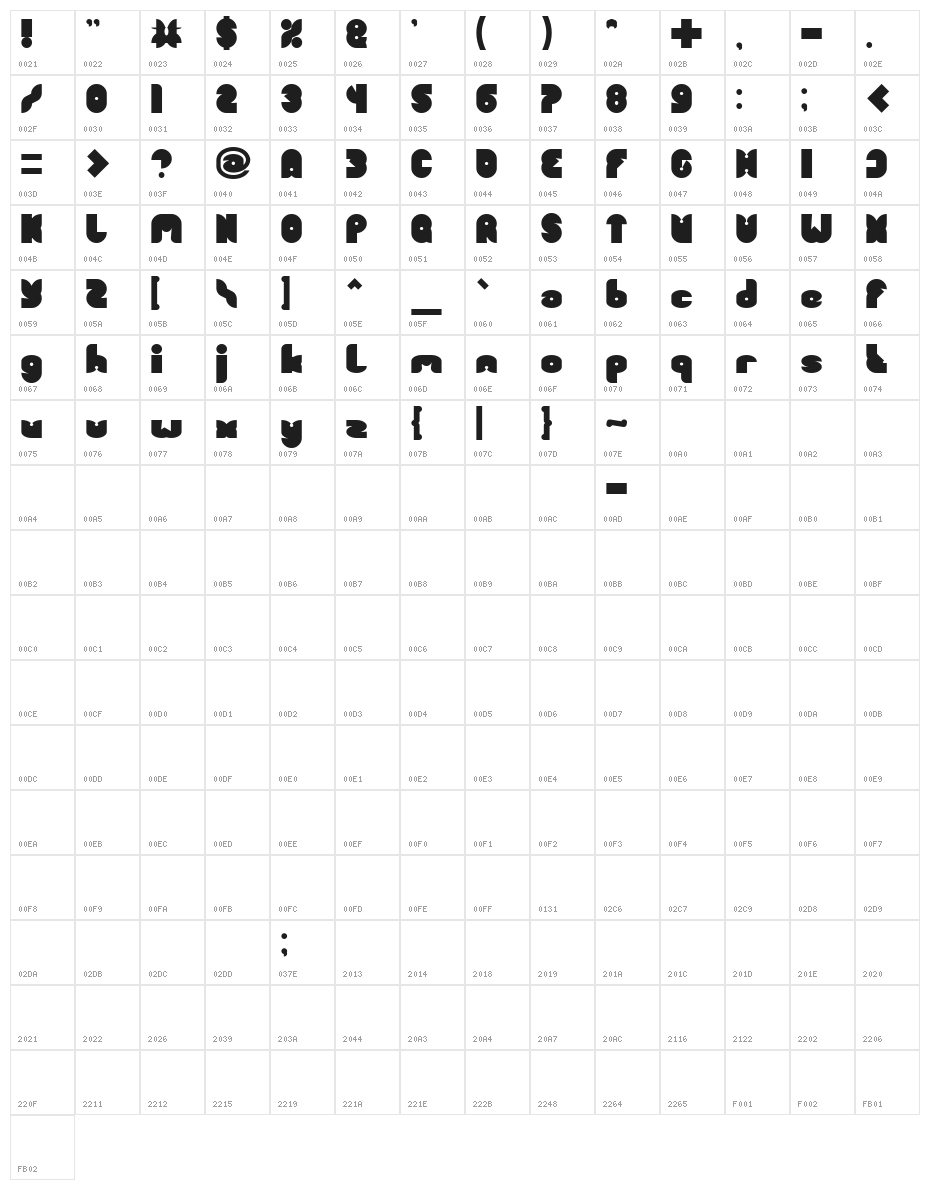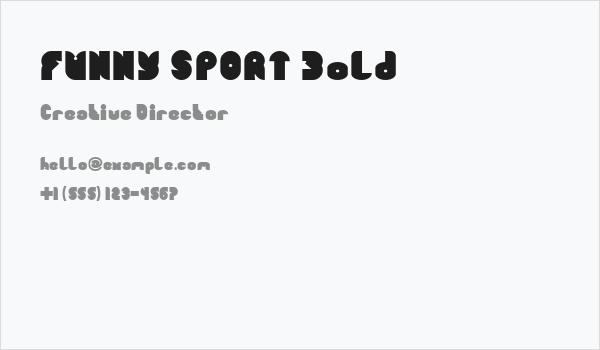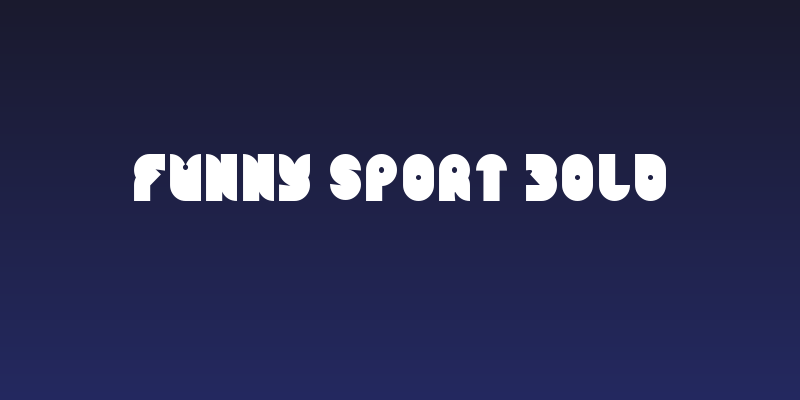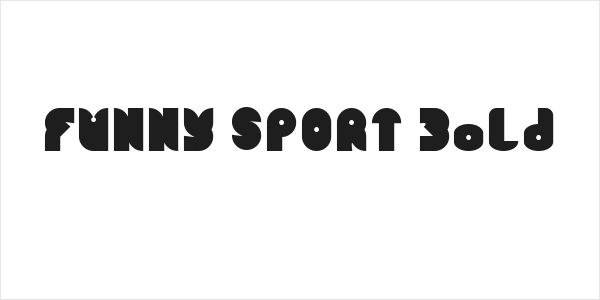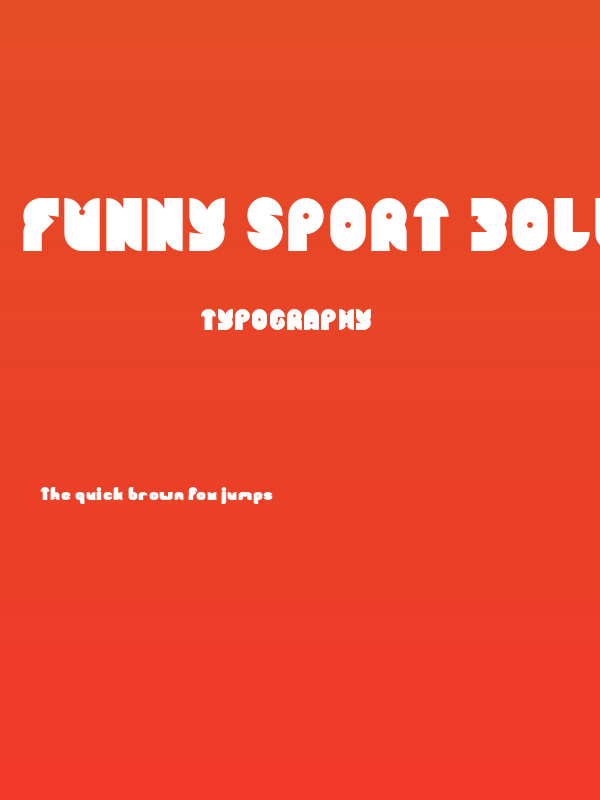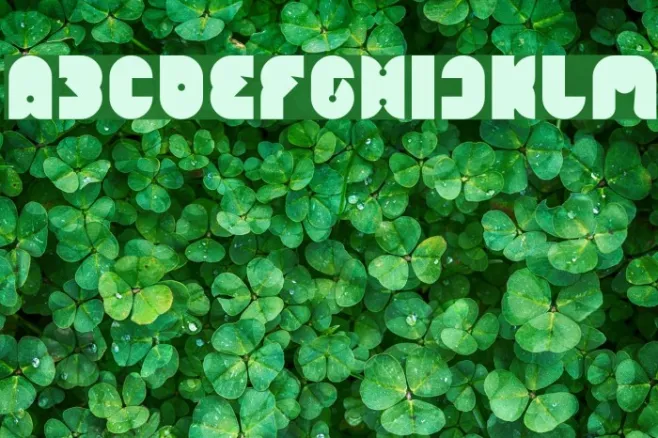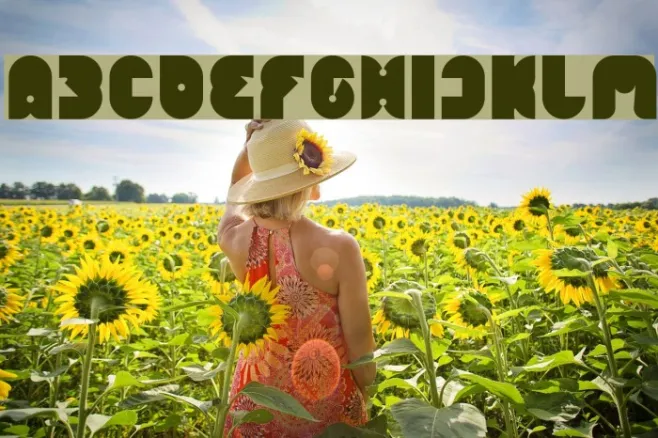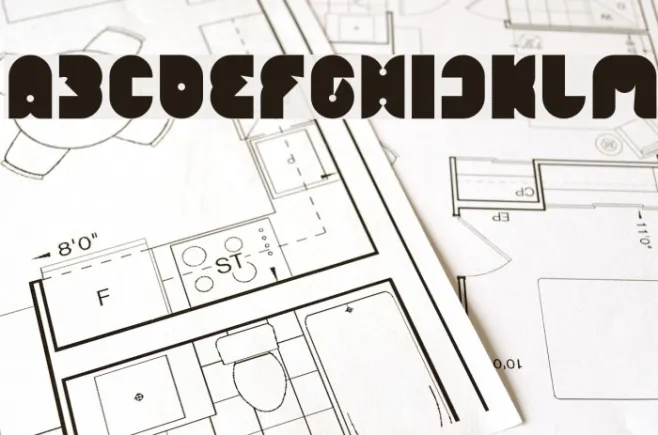
FUNNY SPORT Bold Font
FUNNY SPORT Bold Description
This bold and playful font features a unique, rounded style with geometric elements that create a sense of movement and energy. The characters are heavily stylized, with thick strokes and minimal contrast, giving them a solid and impactful appearance. The font's design incorporates circular cutouts and angular shapes, adding a modern and dynamic touch. Its boldness and distinctive look make it ideal for projects that require a strong visual presence and a fun, sporty vibe.
| Proposed Projects | Ideal for sports branding, playful posters, children's book covers, and dynamic advertising campaigns. |